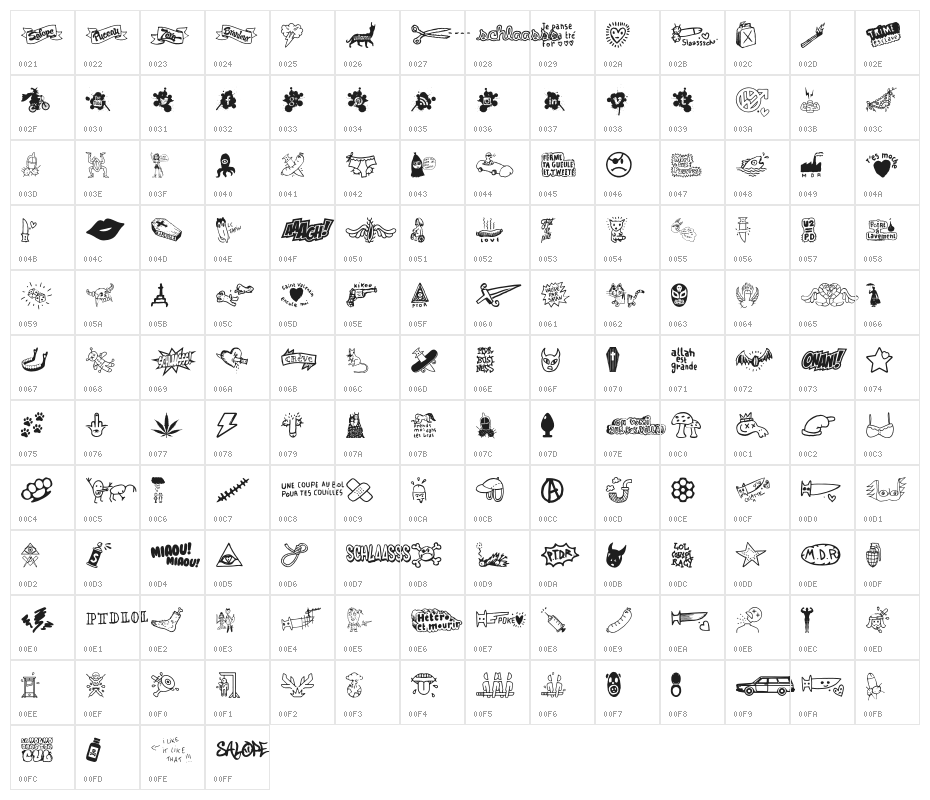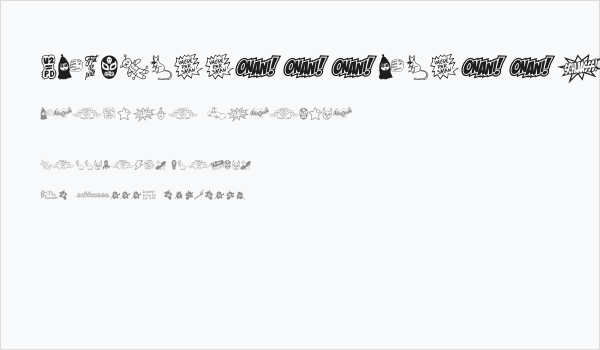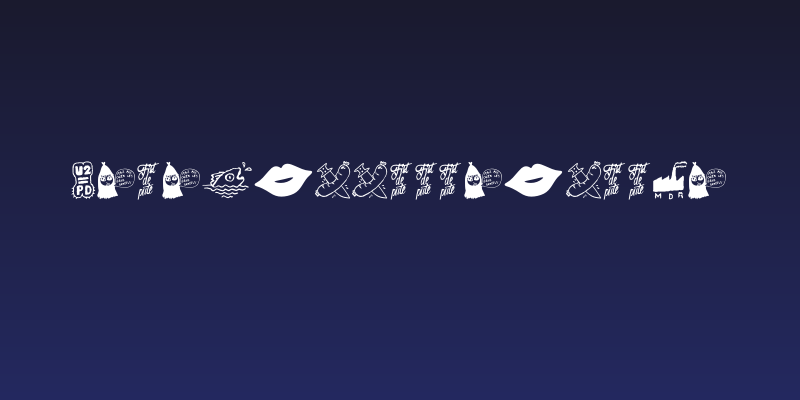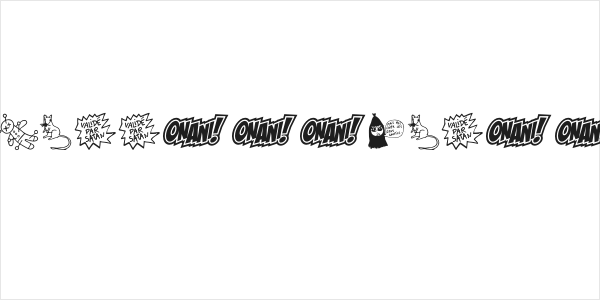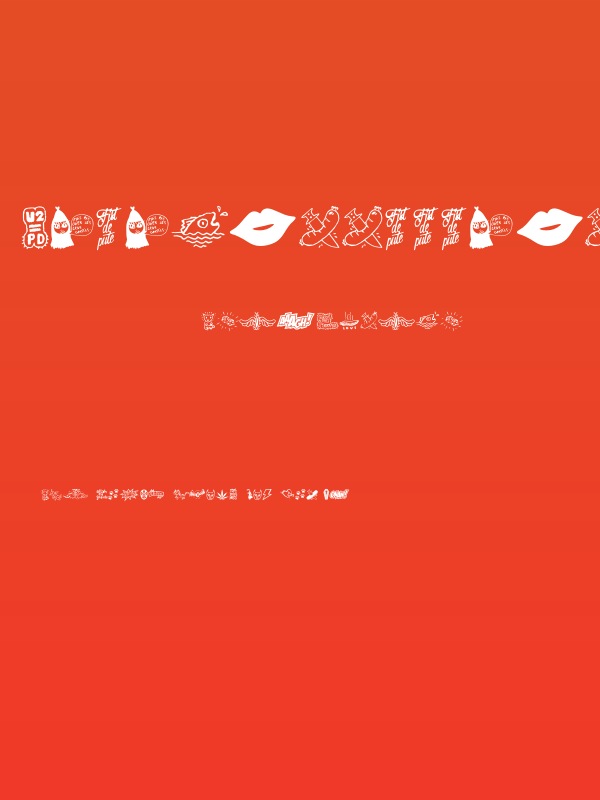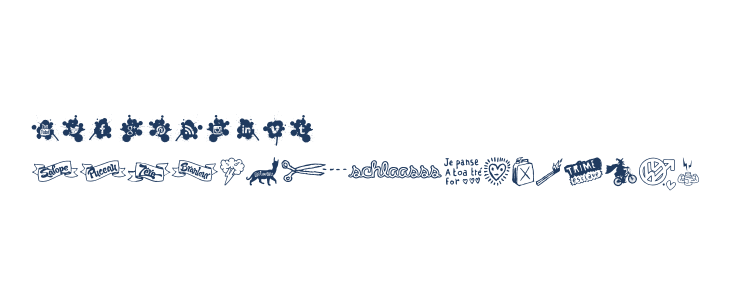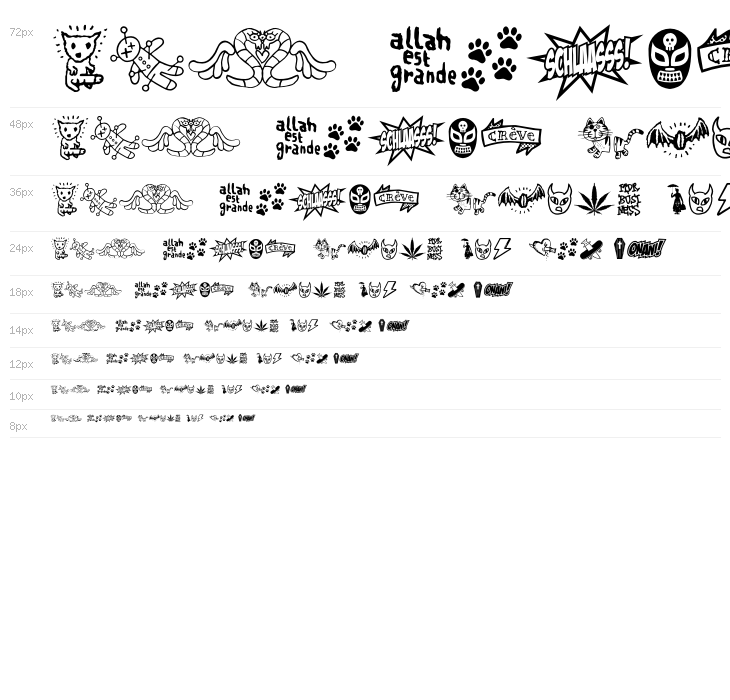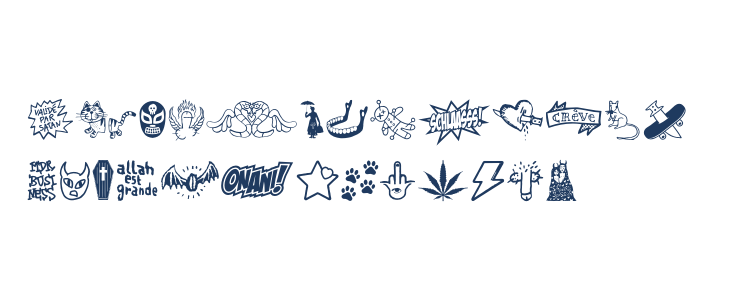
WCSchlaasssClassic Font
WCSchlaasssClassic Description
A highly decorative and playful dingbat set featuring a variety of cartoonish illustrations, comic-style exclamations, pop culture icons, and hand-drawn symbols. The glyphs are bold, high-contrast, and visually dynamic, with a mix of thick outlines and filled shapes, often incorporating text or expressive faces.
| Overall Style | Decorative, Playful, Comic, Urban |
| Use Case | Icons, Decorative elements, Thematic illustrations, Visual accents |
| Proposed Projects | Stickers, posters, zines, comic books, social media graphics, event flyers, youth-oriented branding. |